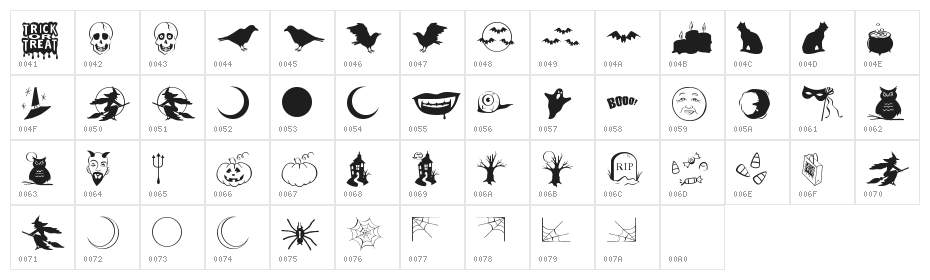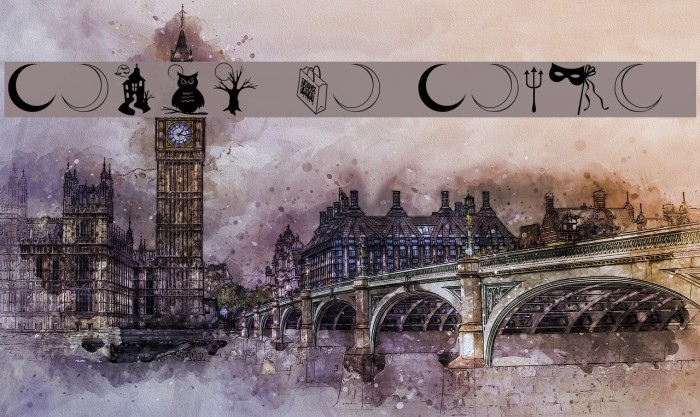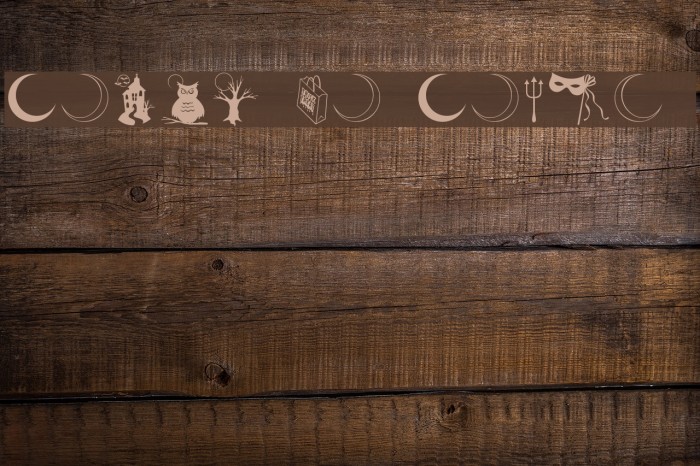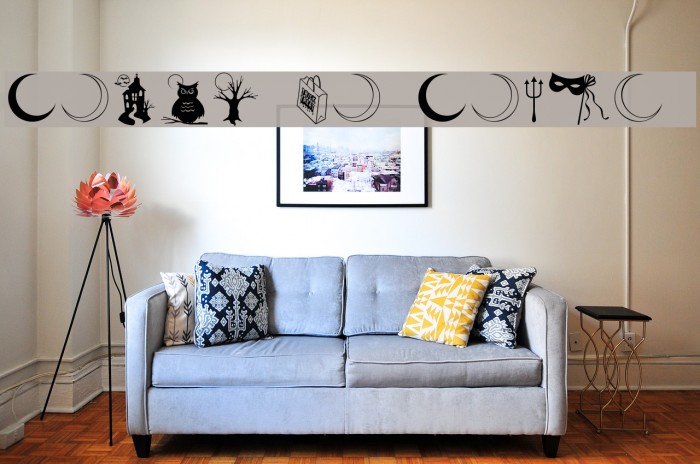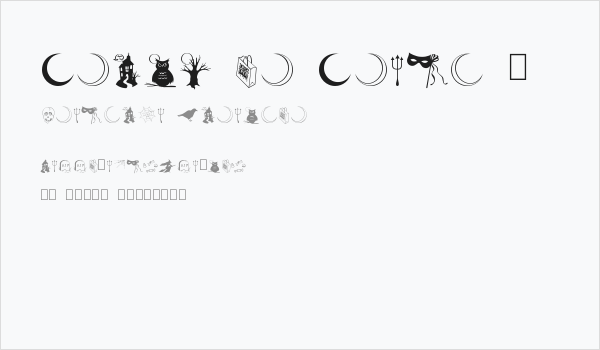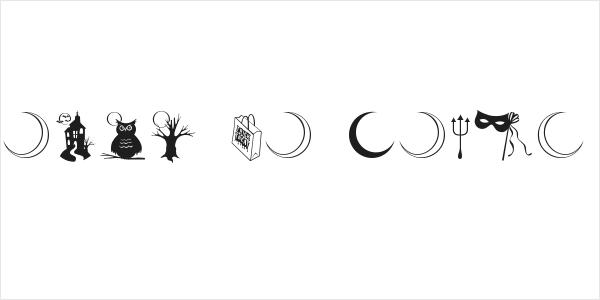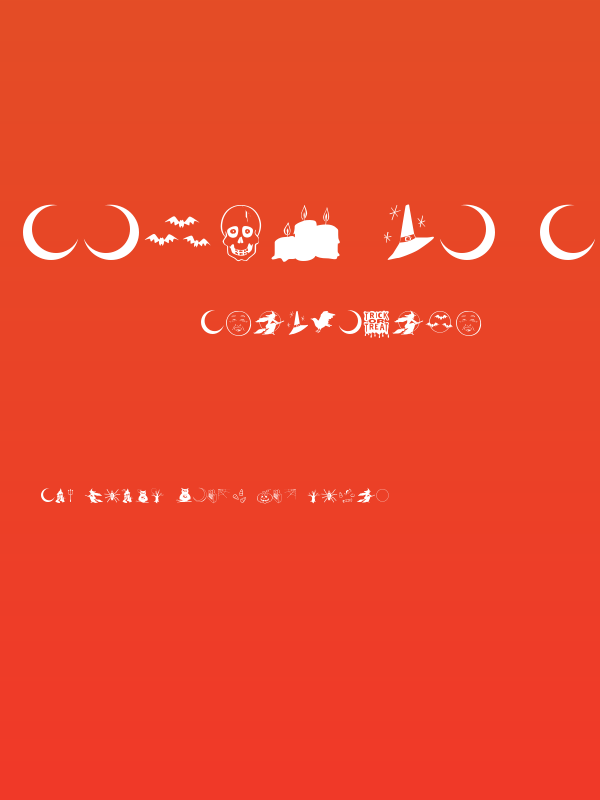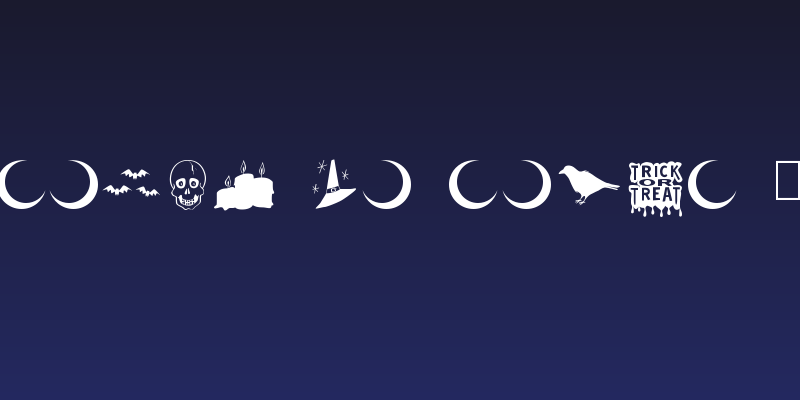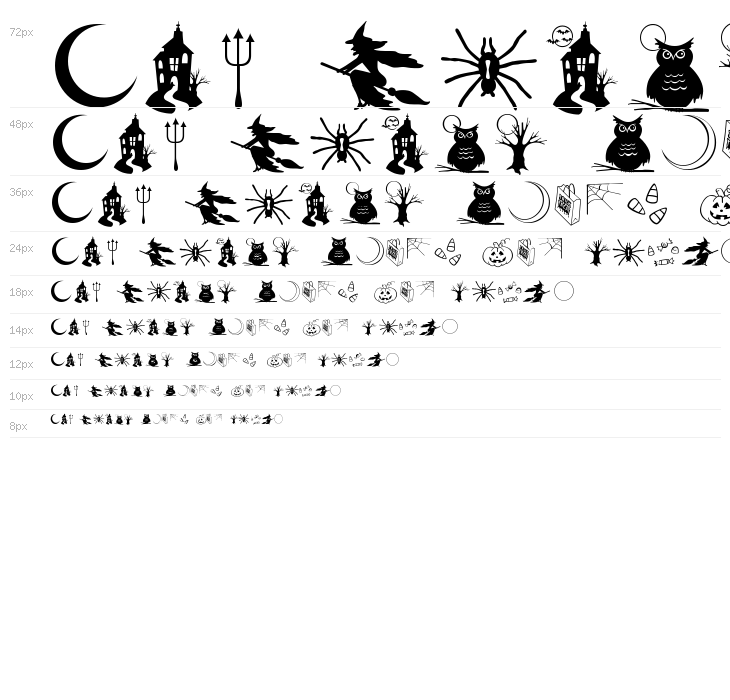
Trick or Treat 2 Font
Trick or Treat 2 Description
A decorative dingbat font featuring various Halloween-themed icons such as skulls, bats, witches, pumpkins, haunted houses, moons, spiders, candy, and other spooky elements. The icons are rendered in a bold, black silhouette style, making them highly recognizable and suitable for festive designs.
Overall StyleDecorative, Festive, Thematic
Use CaseDecorative elements, Icons, Themed graphics
Proposed ProjectsHalloween party invitations, event flyers, posters, crafts, scrapbooking, themed social media graphics, and classroom decorations.